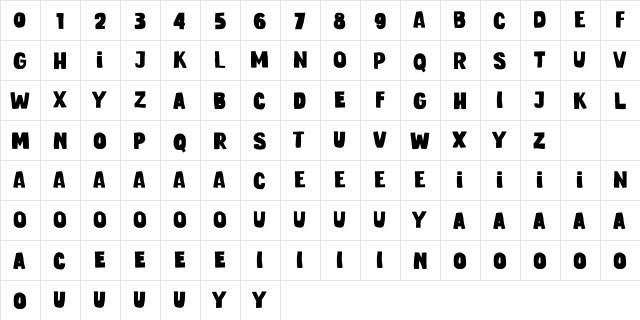
MAUIKEA Demo Regular
| Foundry | Alexatype |
| Designer | Sahirul |
Design Context for MAUIKEA Demo Typeface
MAUIKEA Demo offers clean, dependable letterforms without strong stylistic allegiance, making it a practical choice for designers who need flexibility.